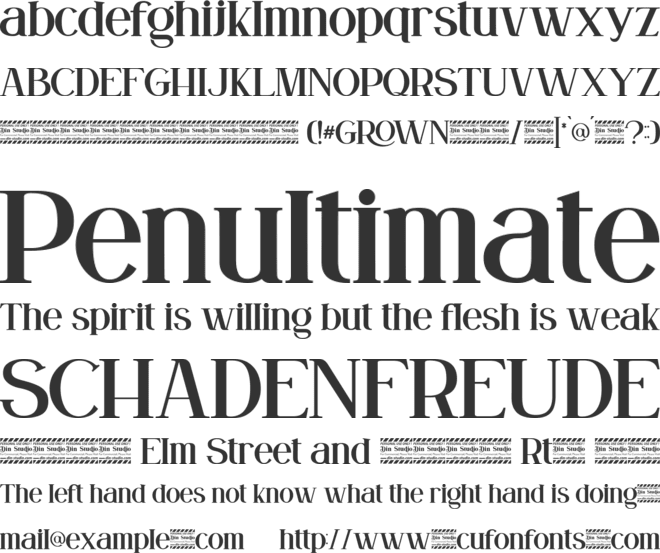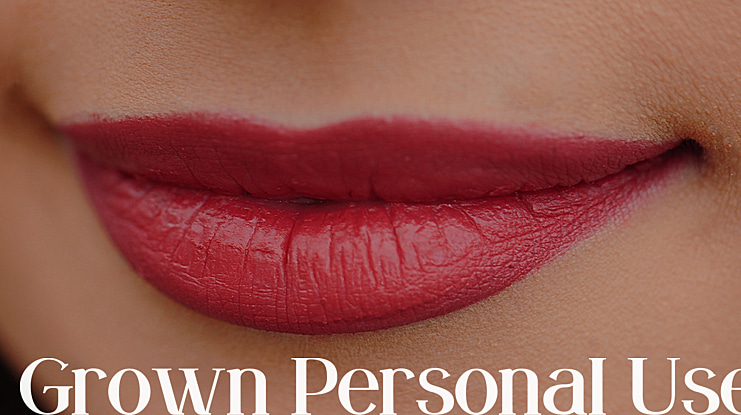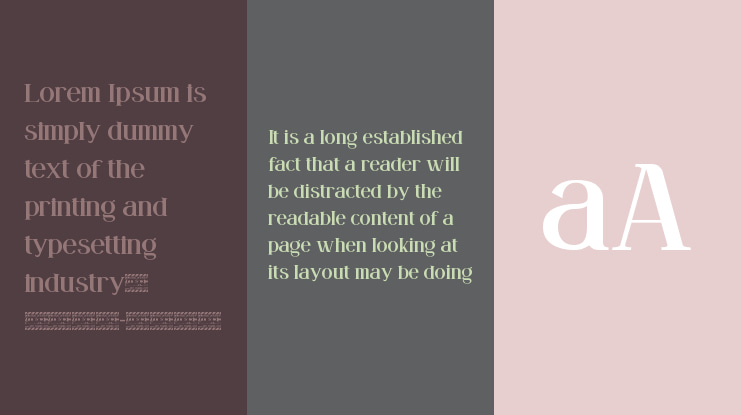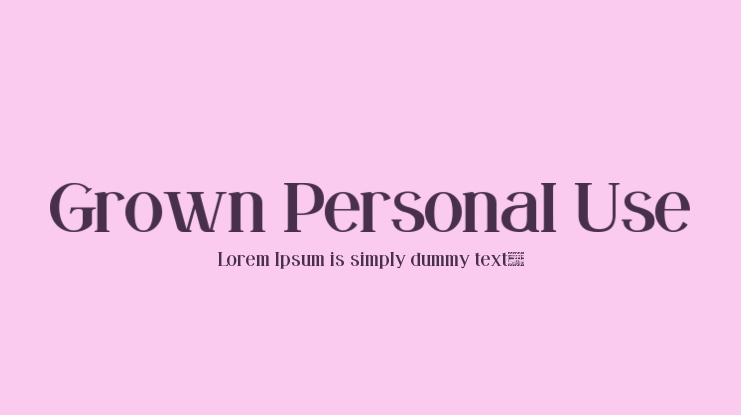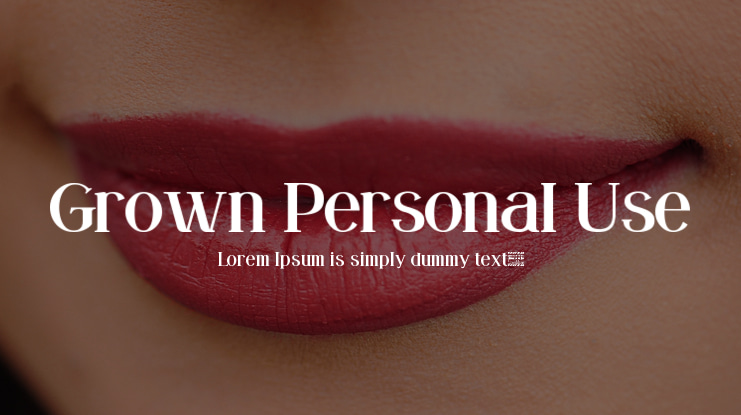
Grown Personal Use Font
Donis Miftahudin
Introducing GROWN Font. The GROWN font is a modern and clean display (Serif) font. Create from our talented font designer. The design of typeface will make your design more beautiful and inspiring. This font will suitable for any project, like branding, print template, logo and etc.
•Accents (Multilingual characters)
•18 Ligatures
•19 Alternates
•Numerals and Punctuation (OpenType Standard)